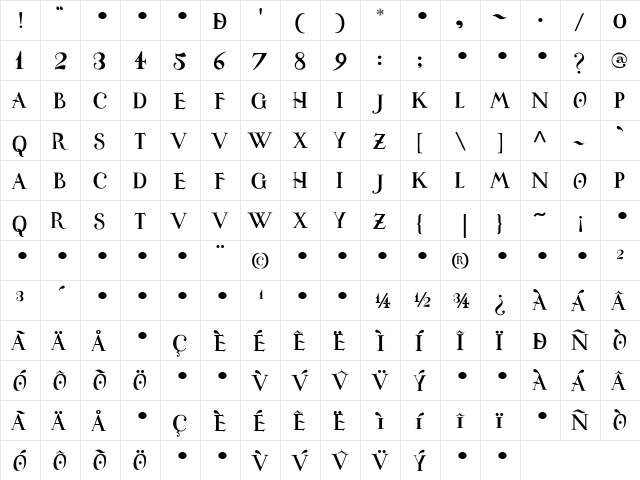
Universitas Studii Salamantini Regular
Design Context for Universitas Studii Salamantini Typeface
Universitas Studii Salamantini is a composed and adaptable typeface that performs quietly and consistently across a wide range of design contexts.